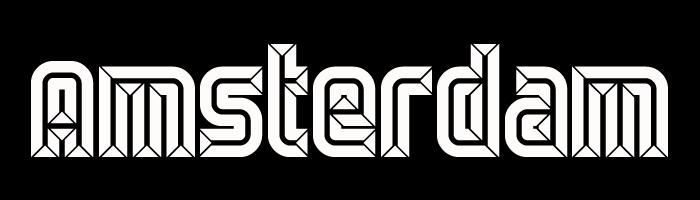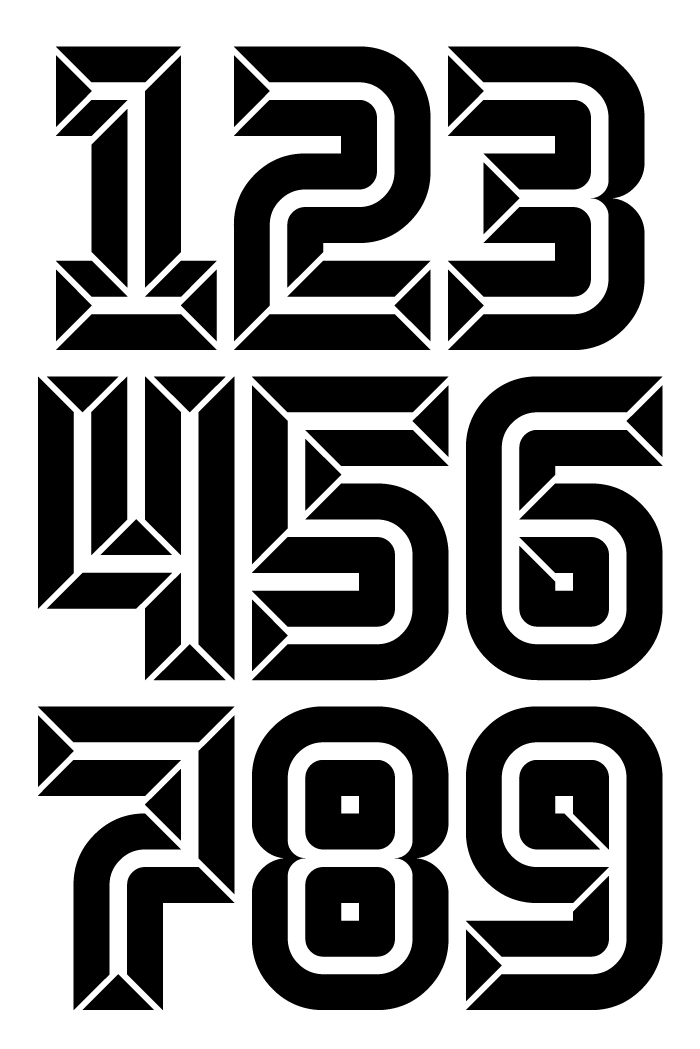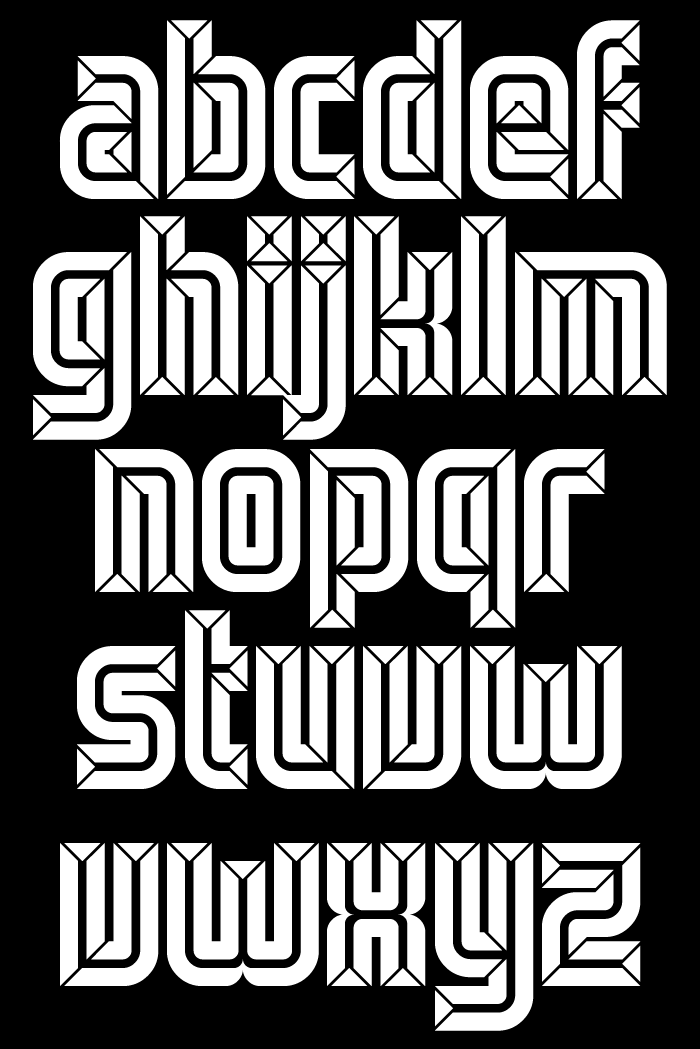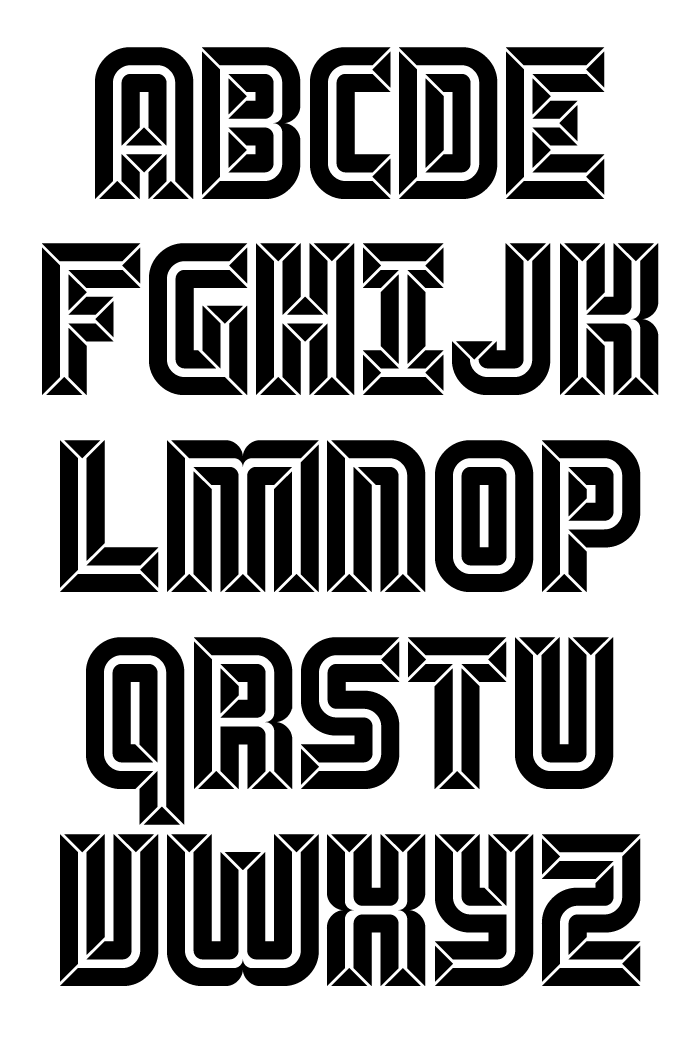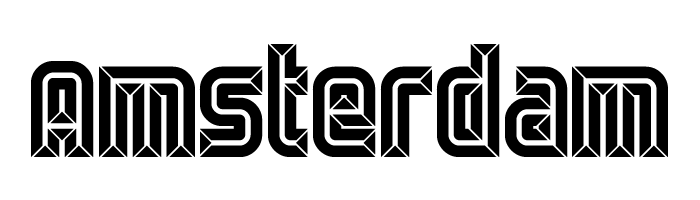
Thanks architaraz, Frodo7, meek, Goatmeal, Yautja and elmoyenique! This started as a simple inline font. I then added the little triangles to get the bevel effect; lots of nudging. A consequence of keeping these characteristic triangles is that some diagonals end in a horizontal, others in a vertical. Following that, I tried to keep these diagonals consistent within each glyph. x-height is only four bricks, making it possible to use the curved bricks.
@four - Excellent work on this terrific bevel font! Congratulations on the Top Pick.
By the way, there seems to be some inconsistencies with the diagonals – compare the top left corners of N/P for example.
Thanks architaraz, Frodo7, meek, Goatmeal, Yautja and elmoyenique! This started as a simple inline font. I then added the little triangles to get the bevel effect; lots of nudging. A consequence of keeping these characteristic triangles is that some diagonals end in a horizontal, others in a vertical. Following that, I tried to keep these diagonals consistent within each glyph. x-height is only four bricks, making it possible to use the curved bricks.